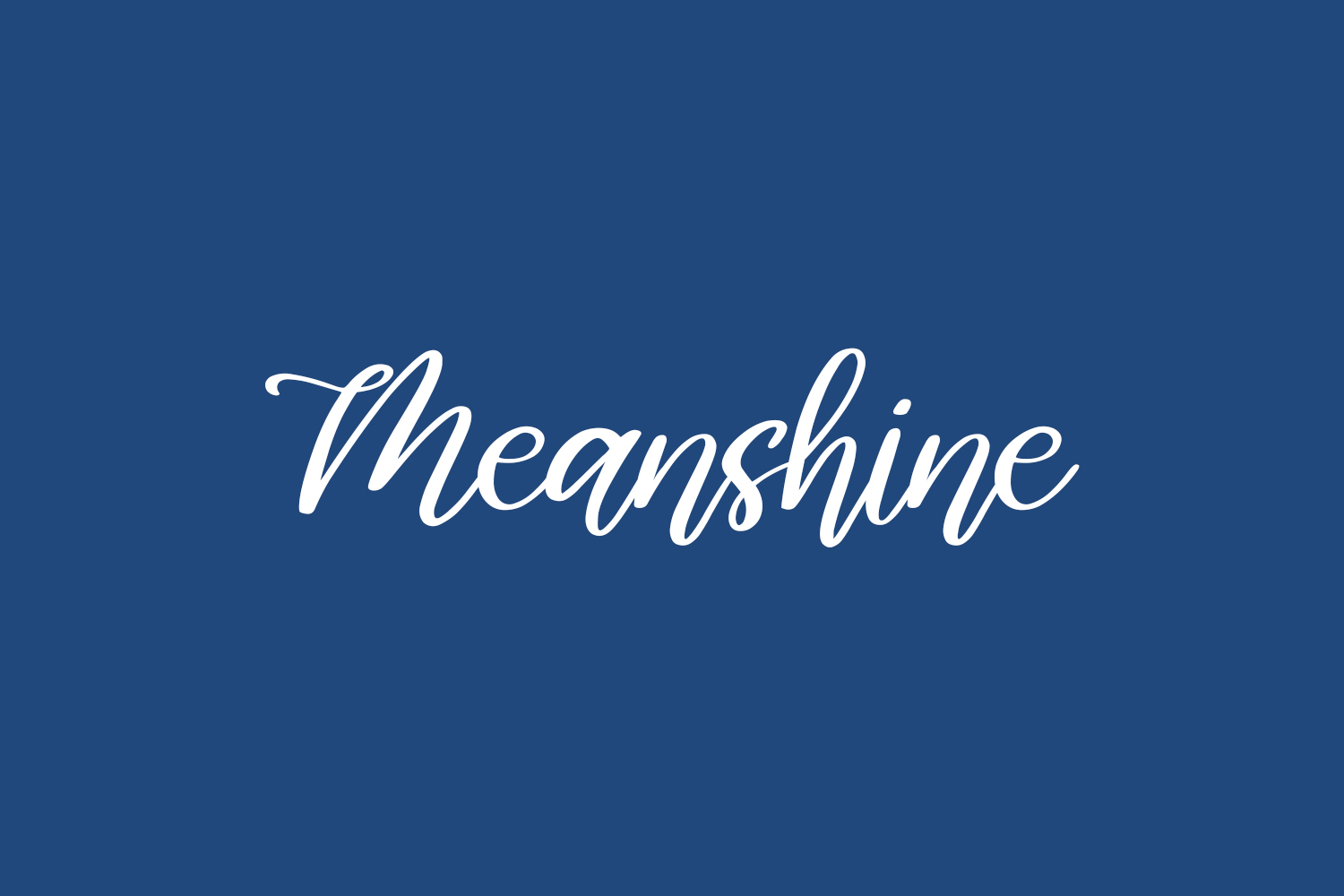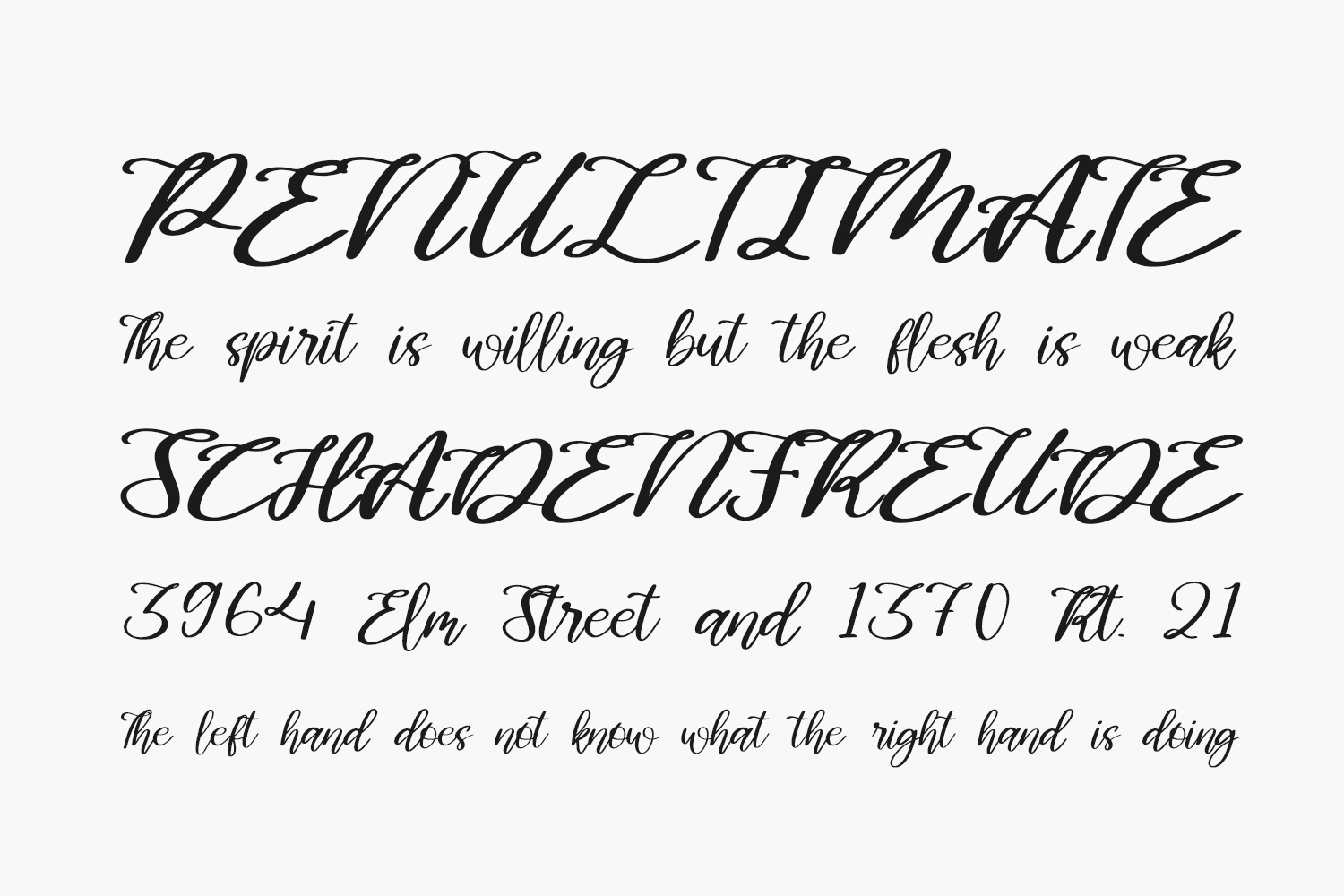
Discover the enchanting world of Meanshine Free Font, a delightful script font adorned with charming and playful characters that gracefully dance along the baseline. Elevate your creative ventures by incorporating this font and witness how it magically sets your ideas apart from the rest. Meanshine Free Font is free for personal use only. Please purchase the full version for commercial use.
Designed by Qwrtype Foundry